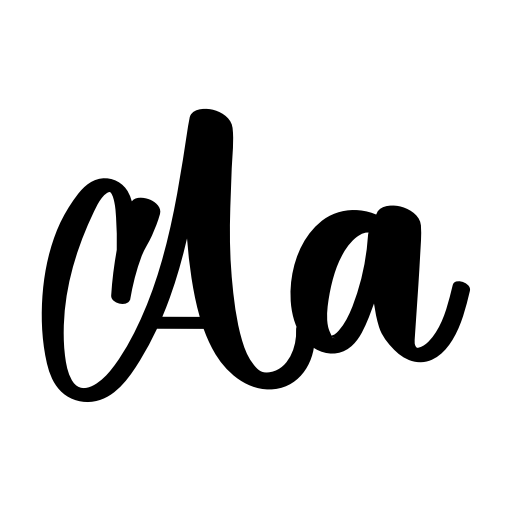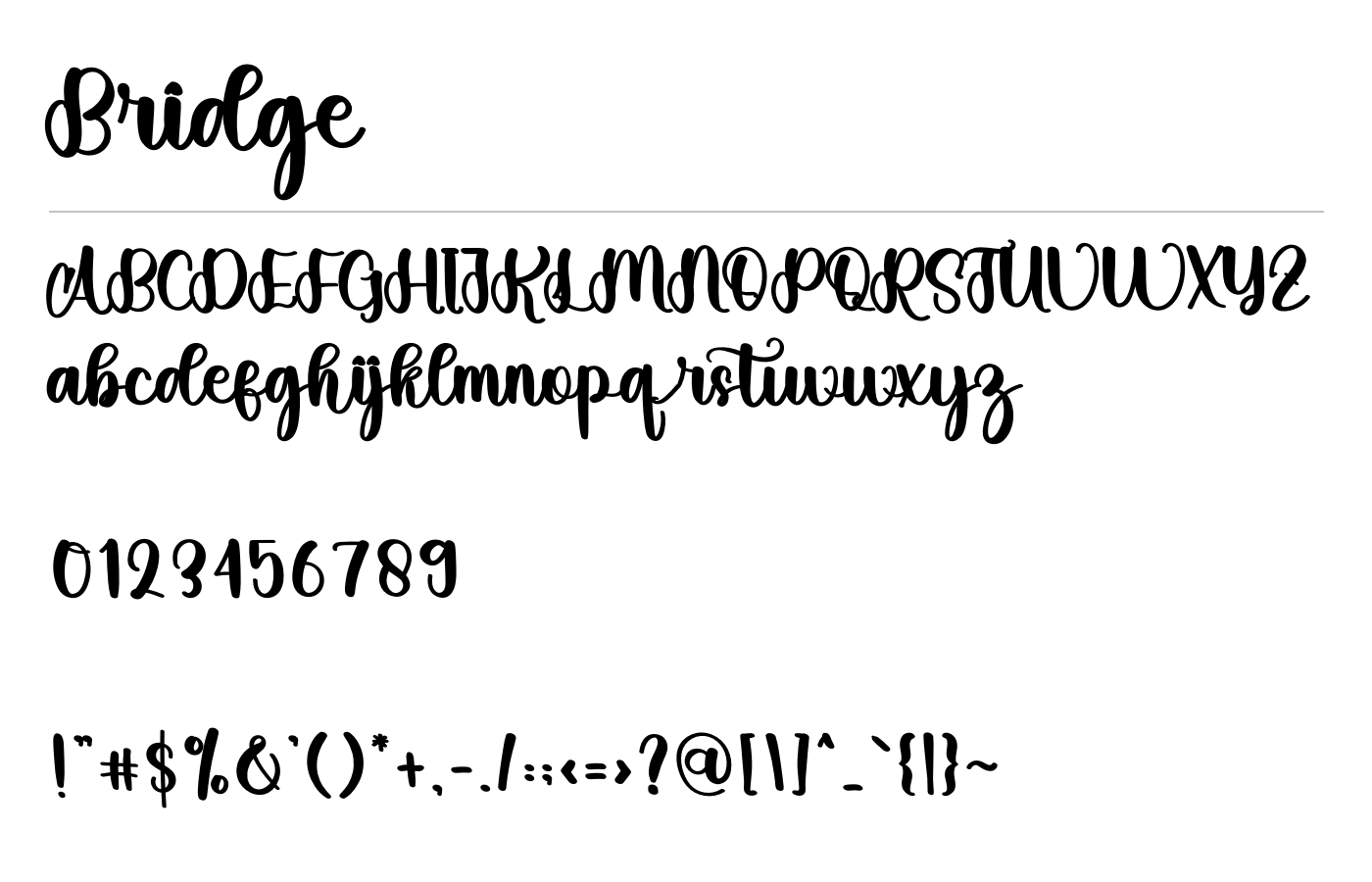
Bridge Font is a playful and artistic script typeface with smooth, rounded strokes and a lively, hand-drawn feel. Its medium weight, moderate contrast, and unique letterforms make it perfect for creative branding, invitations, and casual headlines where a friendly, approachable personality is desired. This font works well for projects that want to convey warmth and charm with a personal touch.
Bridge Font